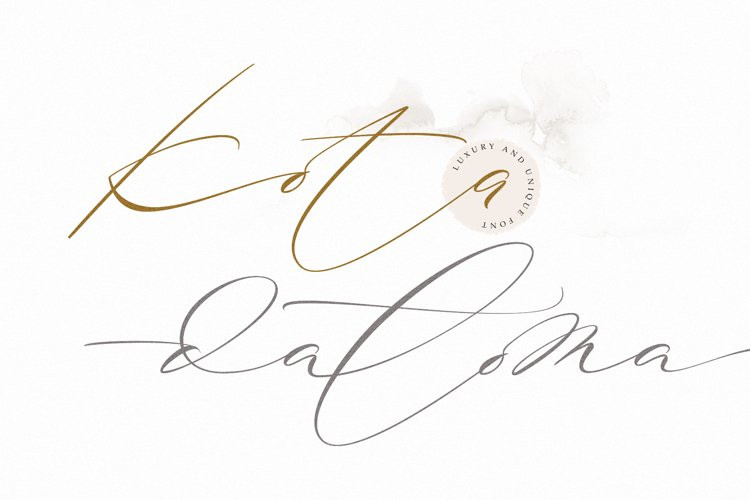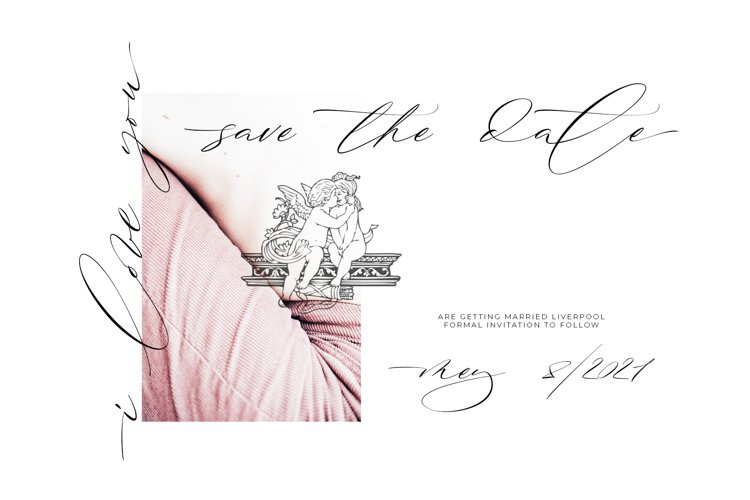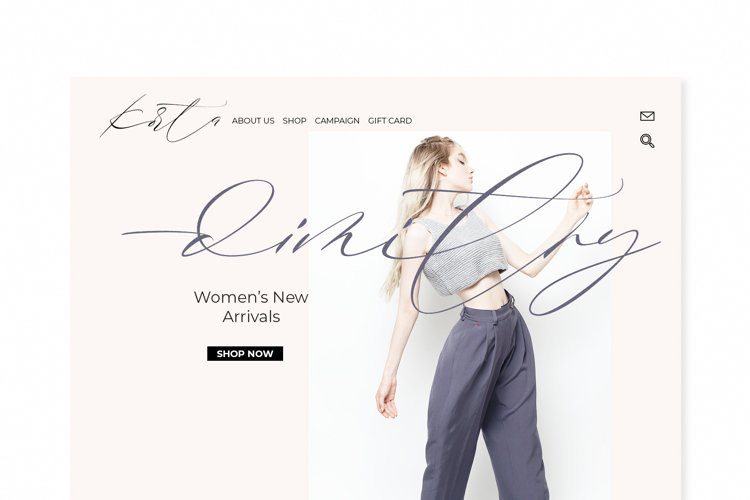
Kota Datoma Font
Kota datoma an luxury and unique calligraphy font. Carefully designed to work together in harmony that makes it perfect for wedding media, book covers, greeting cards, logos, branding, business cards and certificates, even for any design work that requires unique, formal or luxury.